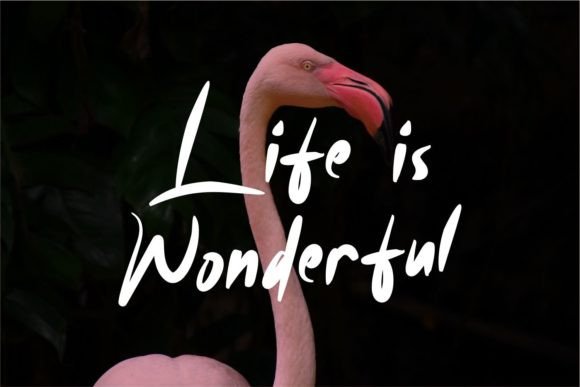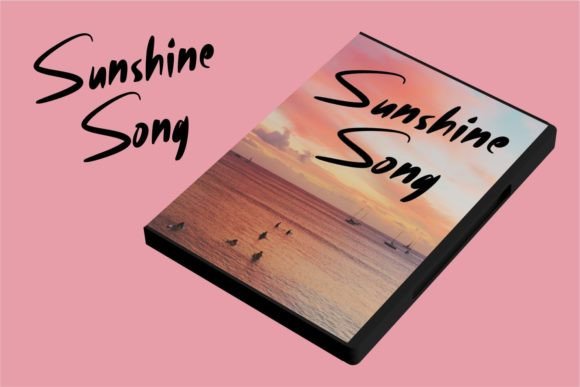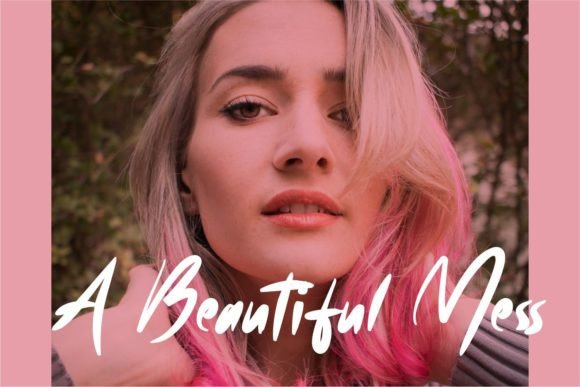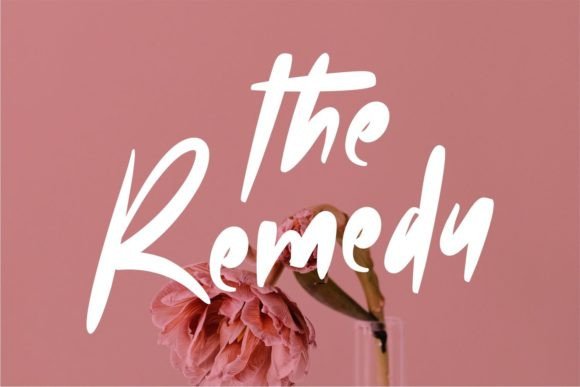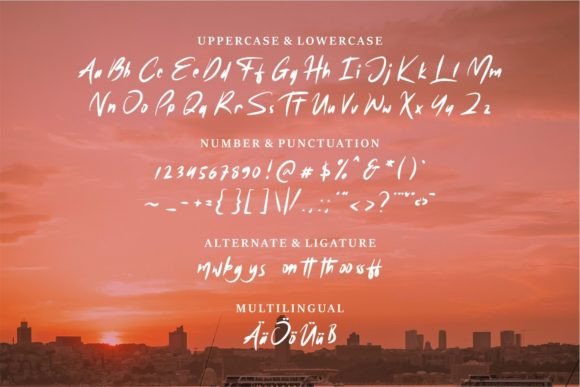
Introduction to Pathy Font
Pathy is a luxurious and flowing cursive script font that adds a touch of elegance and refinement to any design project.
With its graceful curves and delicate strokes, Lavender is the perfect choice for wedding invitations, high-end branding, and other upscale projects Its exquisite details make it a truly standout font.
Key Features of Pathy Font
Why Choose Pathy Font?
Pathy Font offers exceptional quality and versatility, making it a valuable addition to your design toolkit. Whether you’re creating for personal projects or commercial use, Pathy Font delivers professional results.